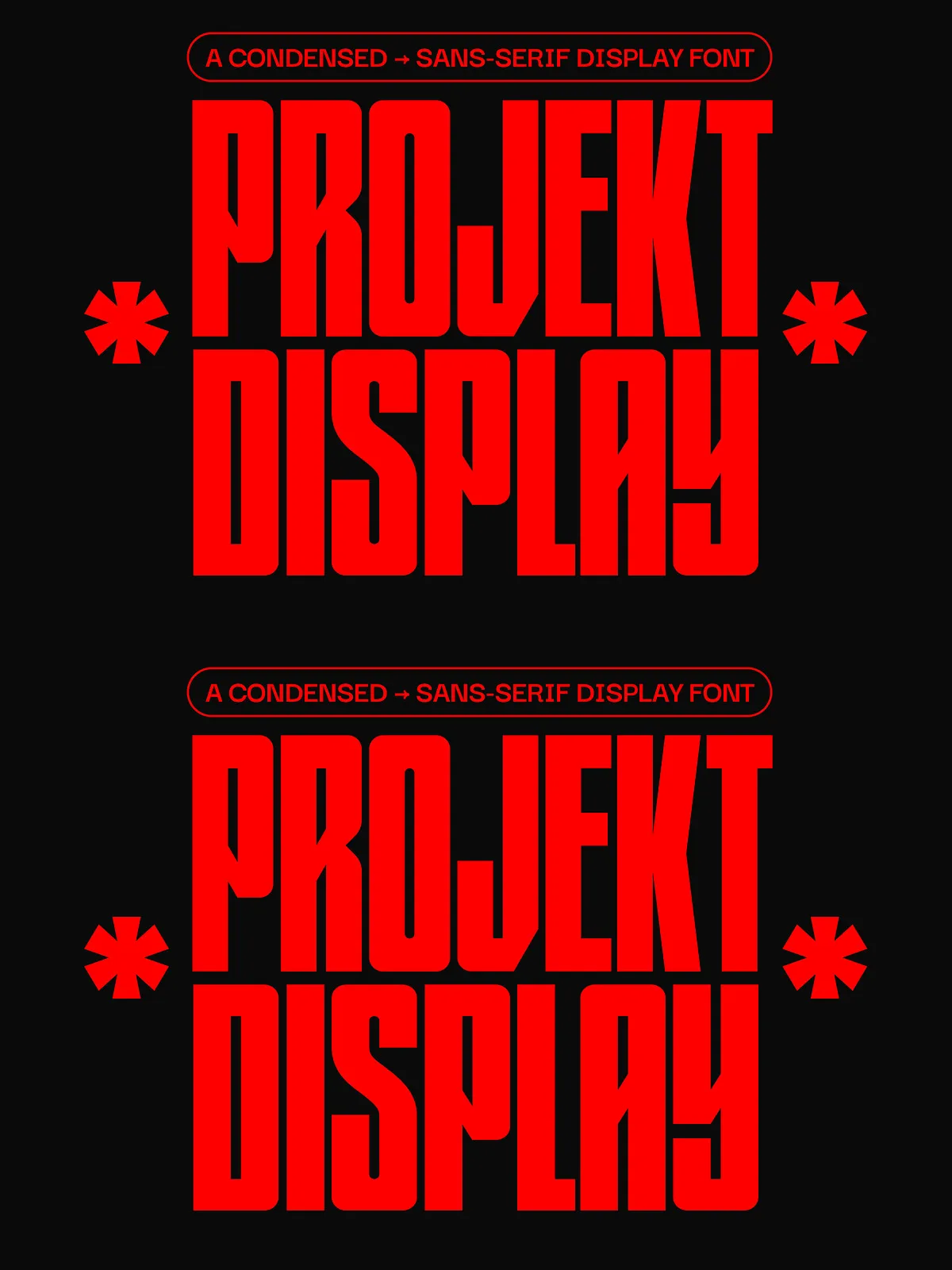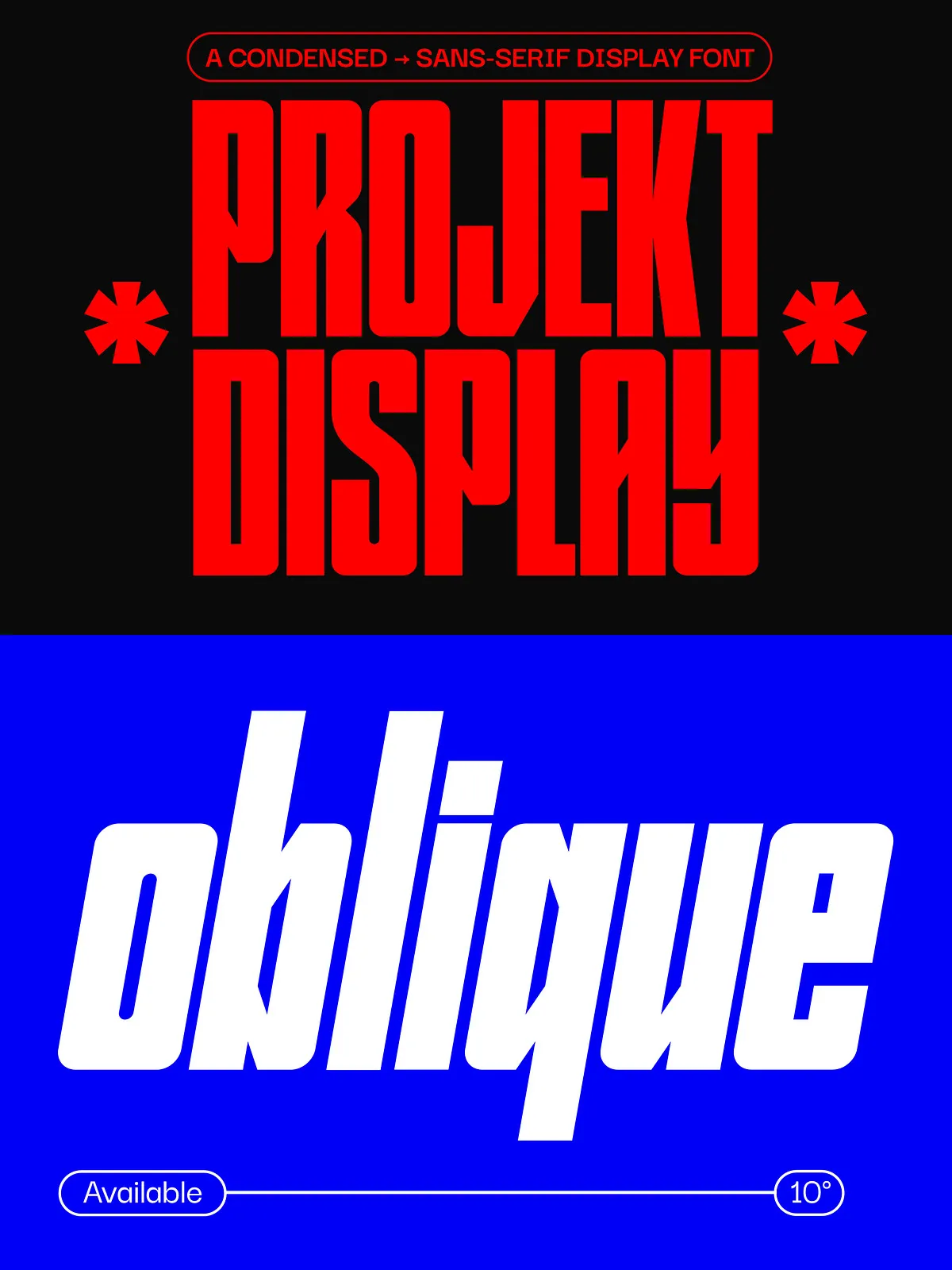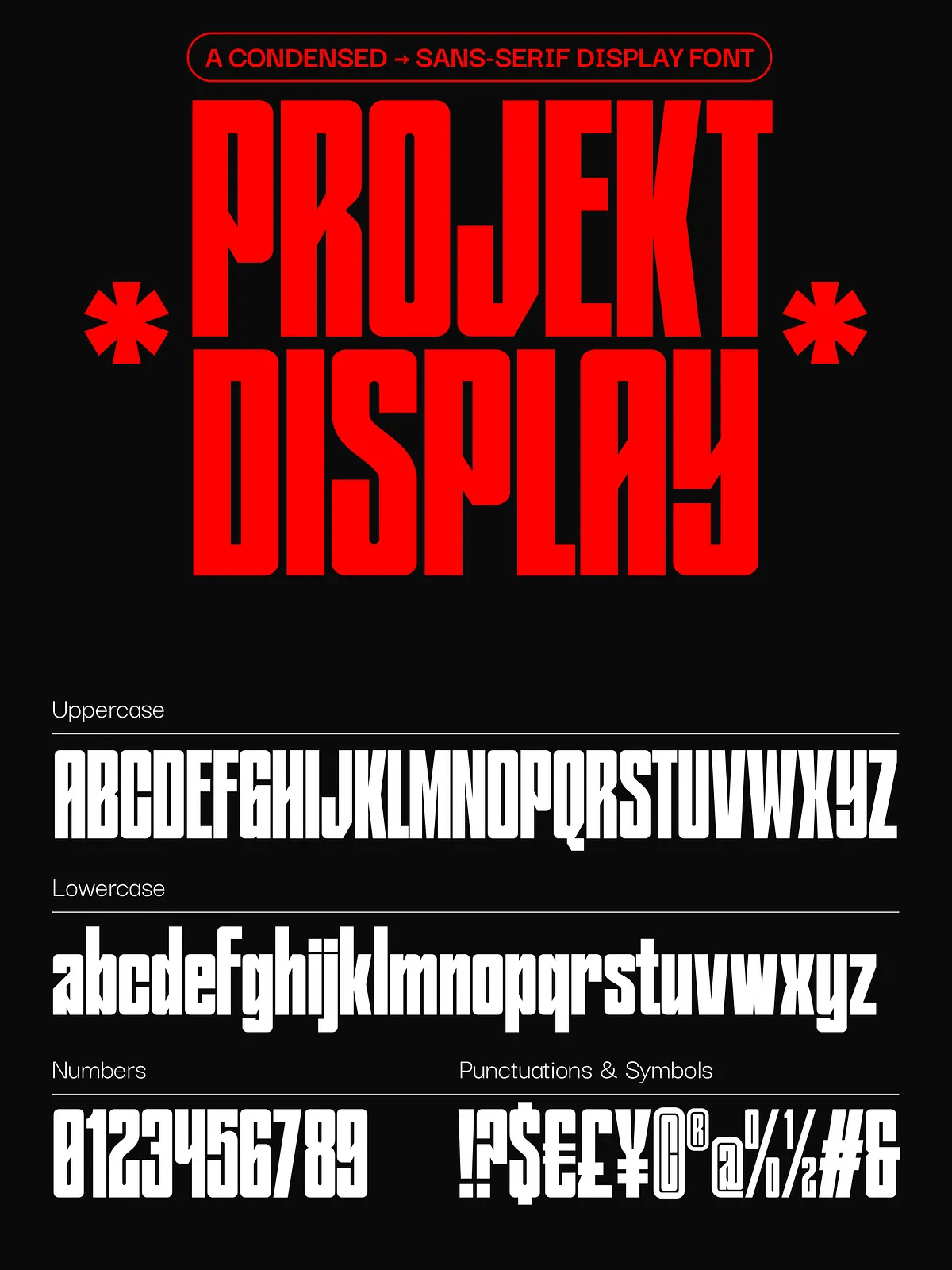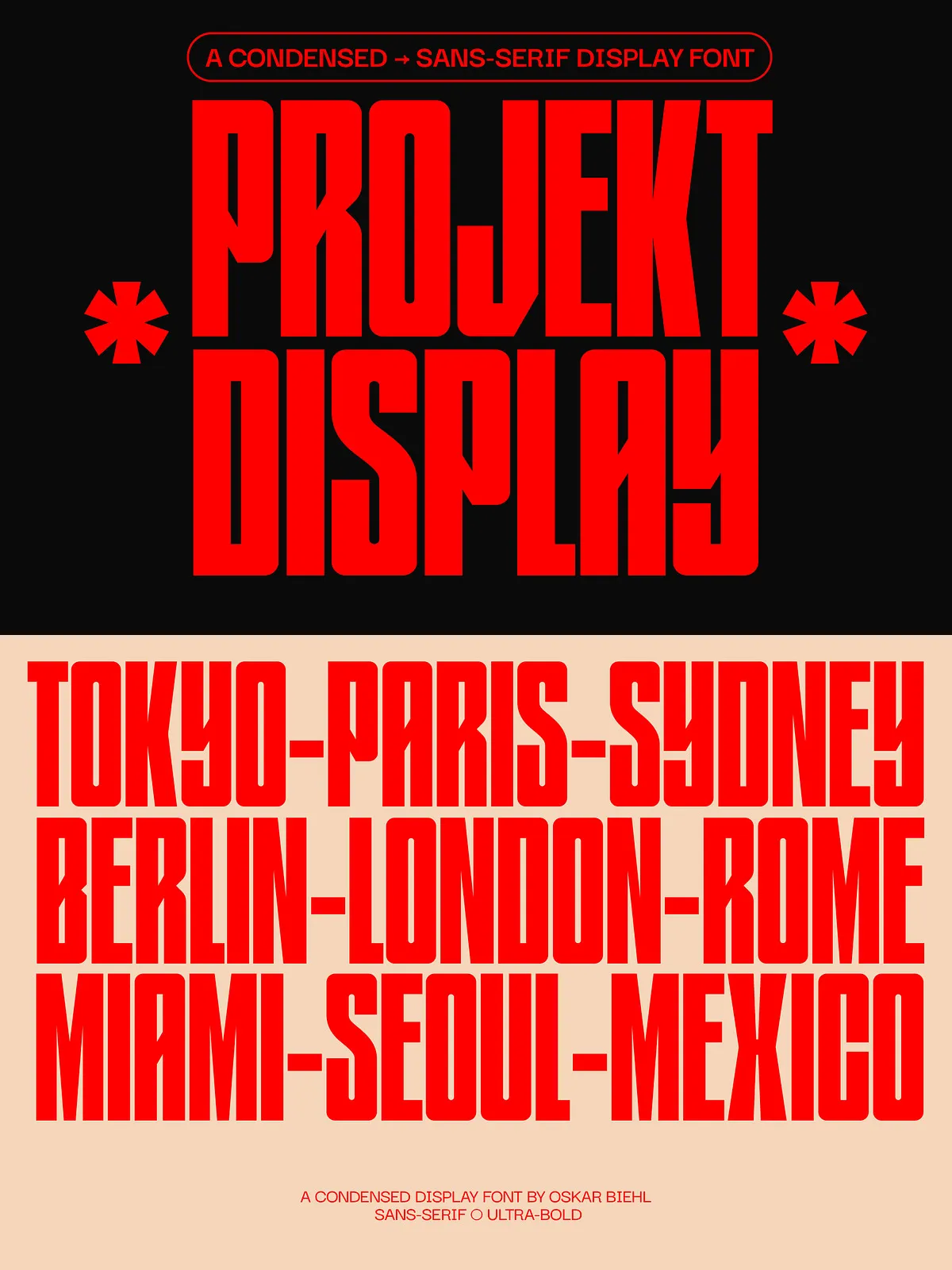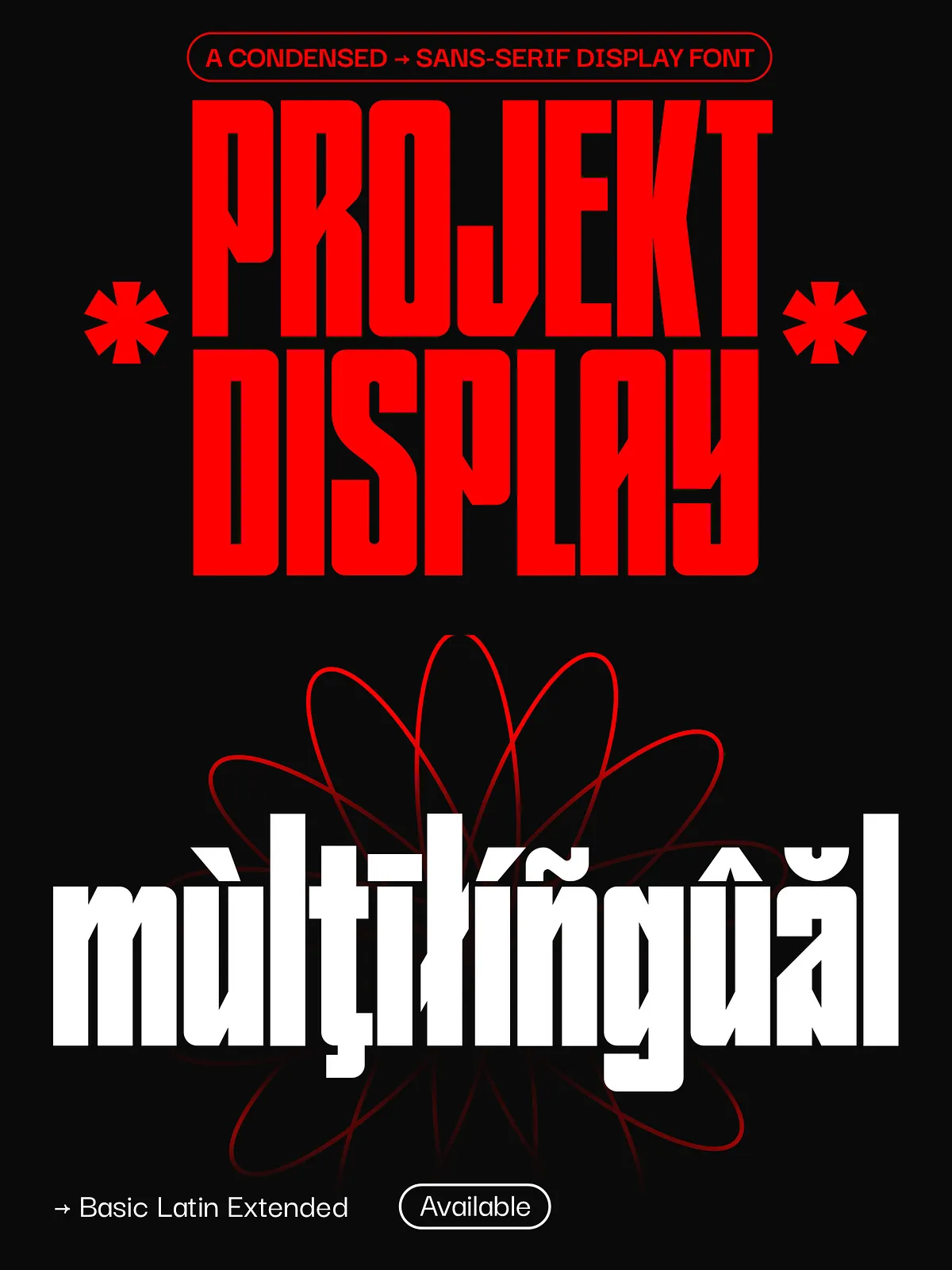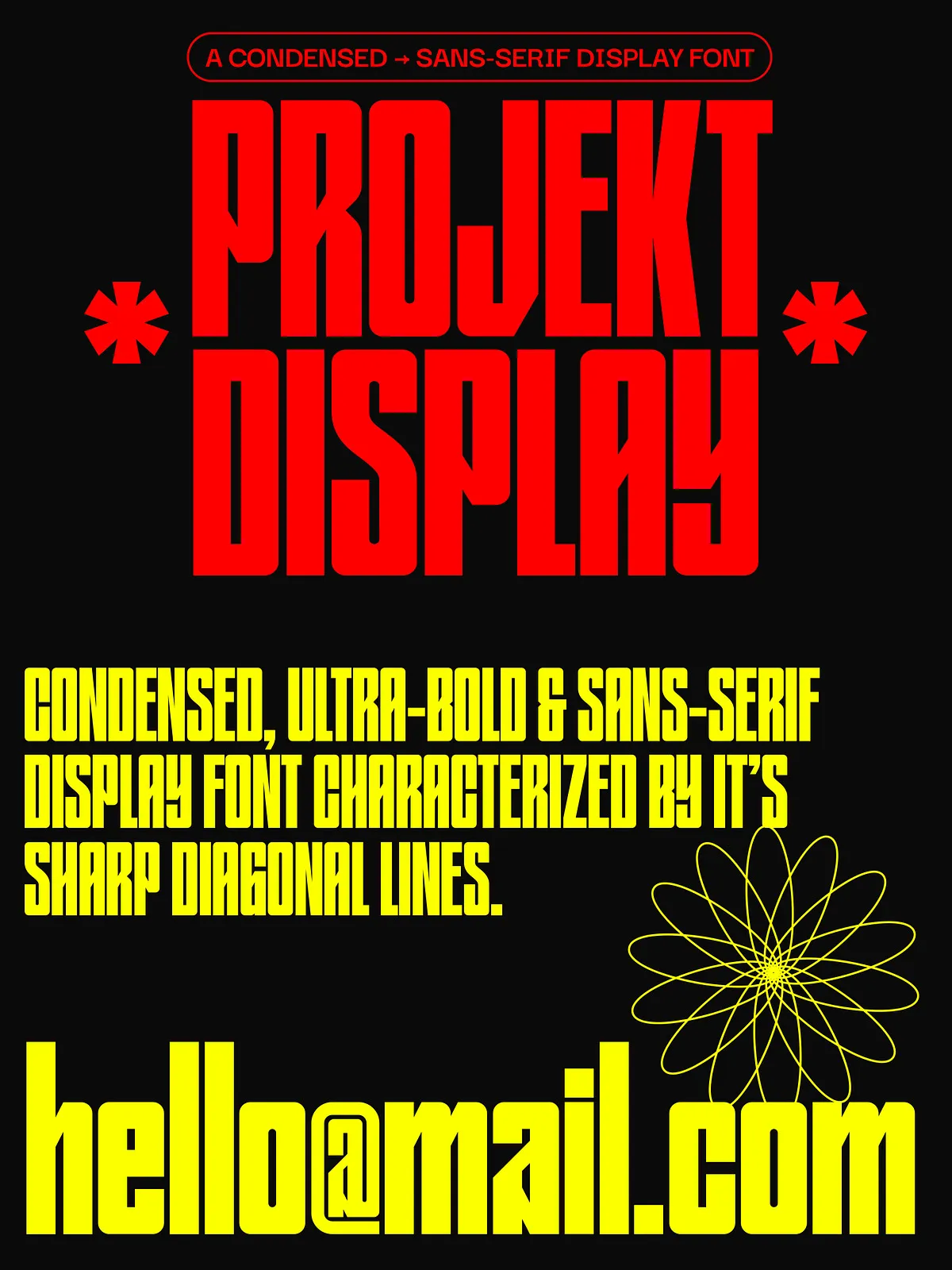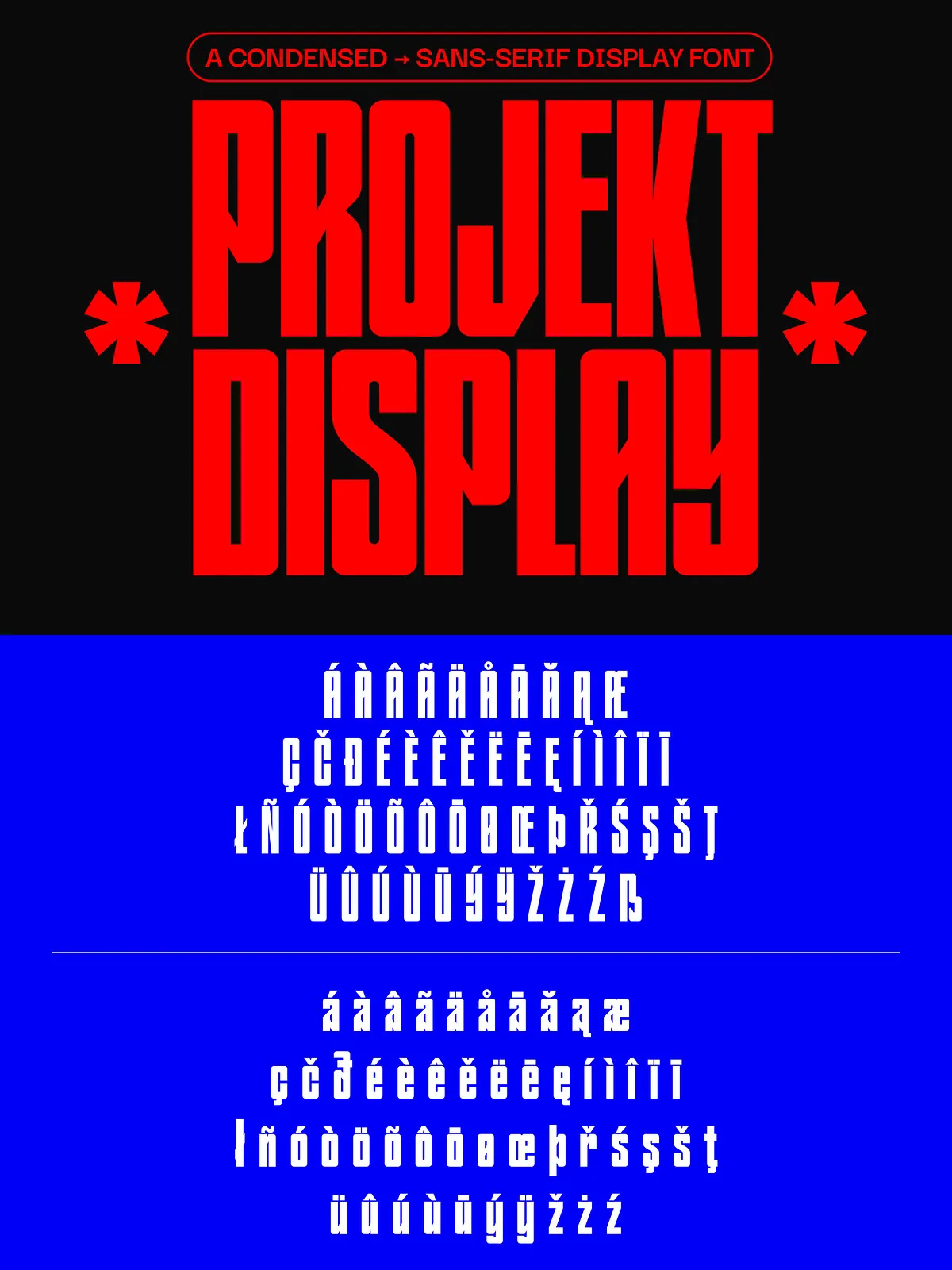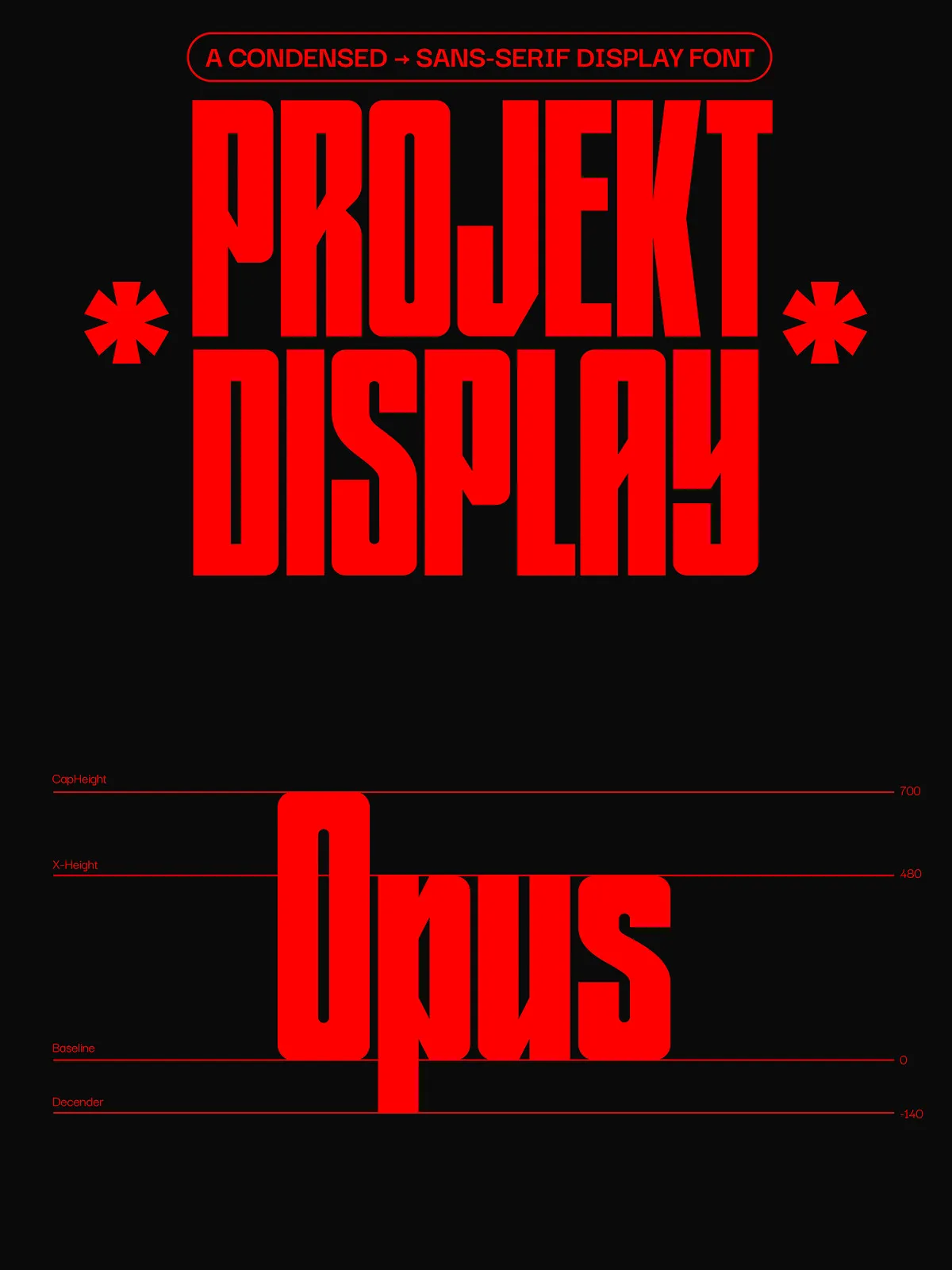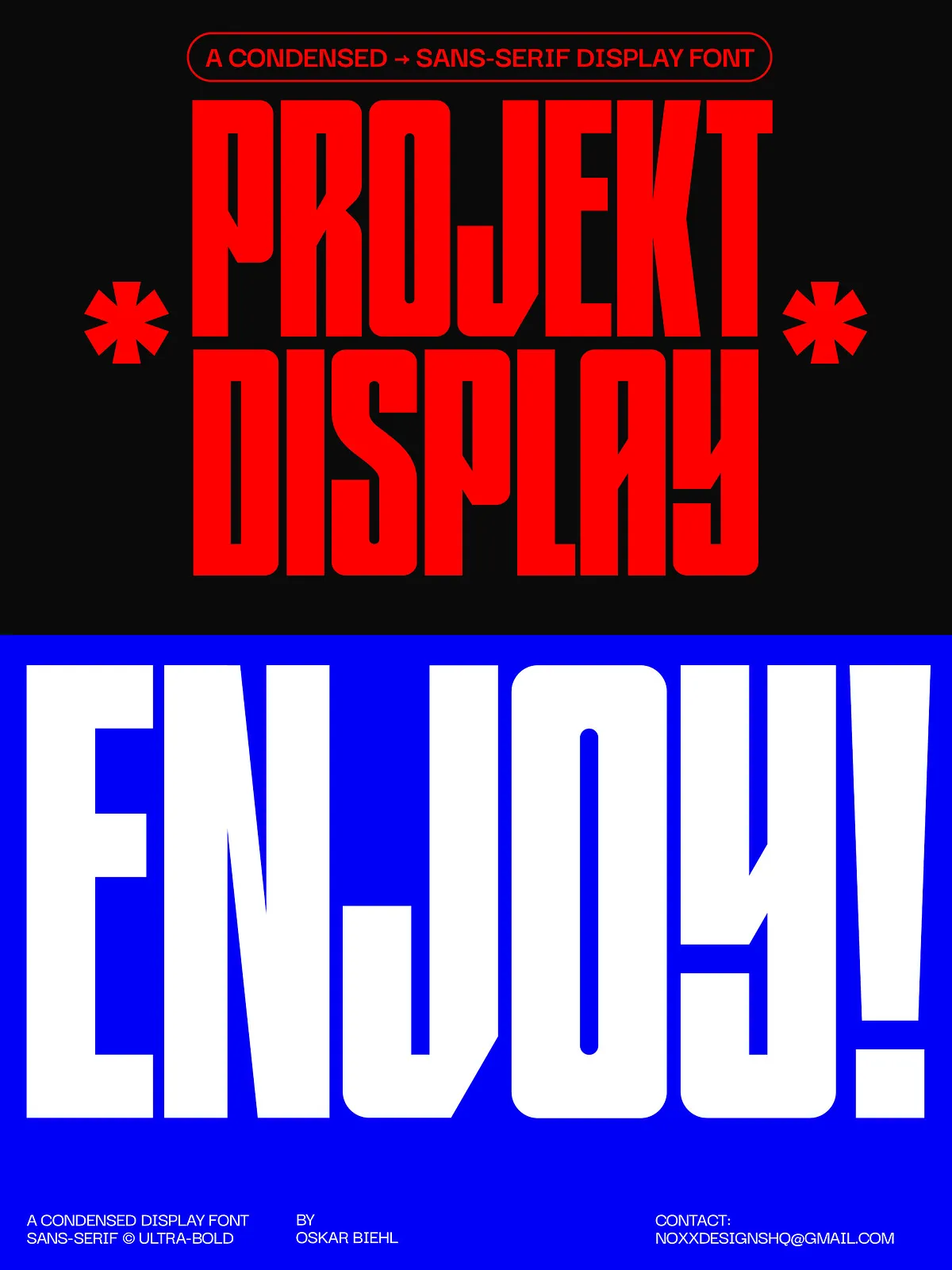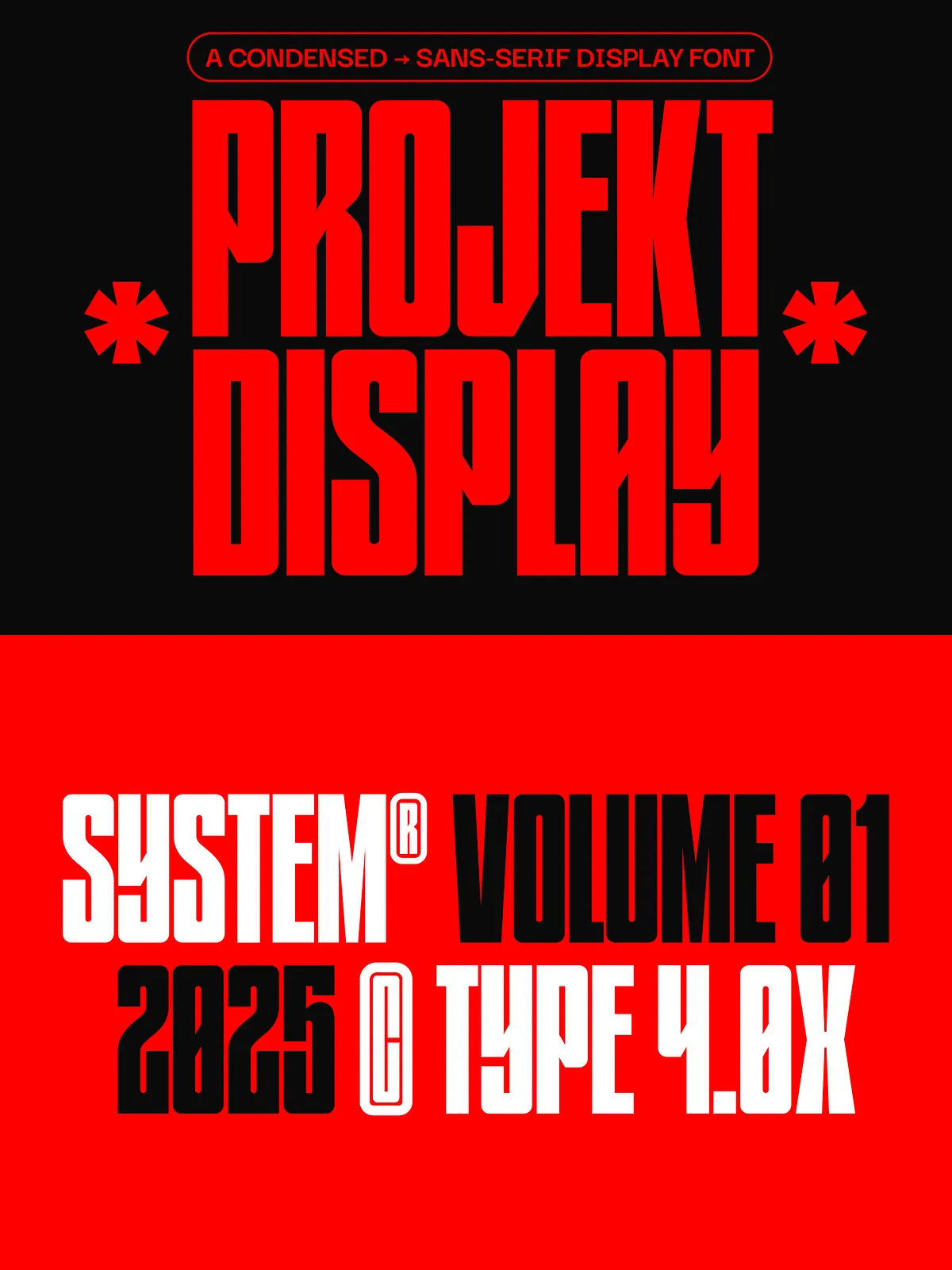
Projekt Display – Condensed Font
Projekt Display is a condensed sans-serif font characterized by sharp diagonal lines, perfect for bold typography that makes your designs stand out. The typeface is available in a single weight—Black—and includes an italic variant. Additionally, it supports an extended range of multilingual characters from the Basic Latin set.
PROJEKT DISPLAY Features
Uppercase Letters
Lowercase Letters
Numbers, Symbols, and Punctuation
Range of Latin Extended Characters
Italic / Slanted Available